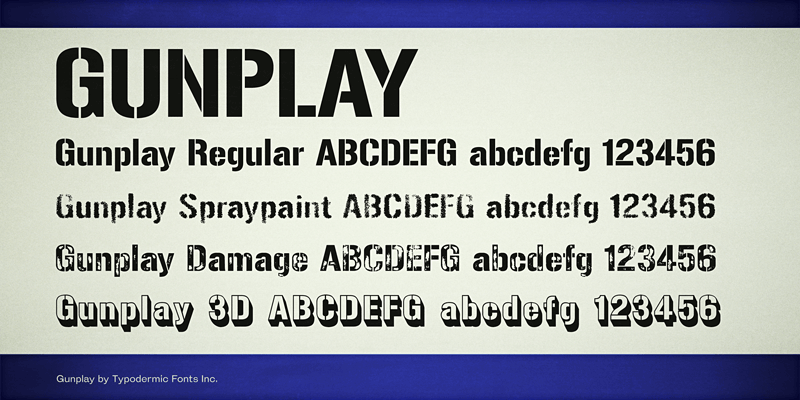
Gunplay is a hard-nosed stencil font inspired by the poster for the 1972 Steve McQueen/Ali MacGraw film, The Getaway. These fonts include a license that allows free commercial use: sometimes referred to as a desktop license. This allows you to install the fonts on a computer and use them to create posters, web graphics, game graphics, t-shirts, videos, signs, logos and more. Read the license agreement for details. If you'd like to embed these fonts in an app, ebook, on the web or anything that's not covered by the desktop license agreement, visit the link below. You'll find distributors who offer different types of licenses or you can contact me for help. http://typodermicfonts.com/gunplay/ These free fonts are part of a larger font family. Check out the rest of the family through the link above. |